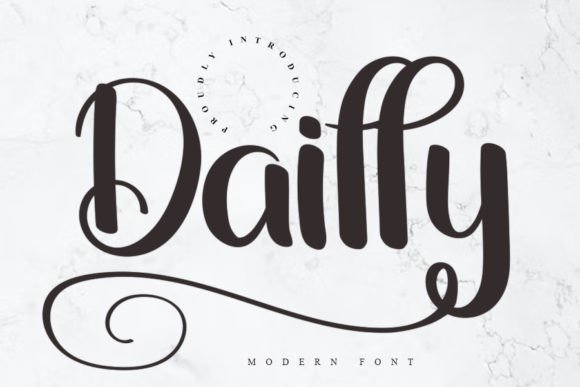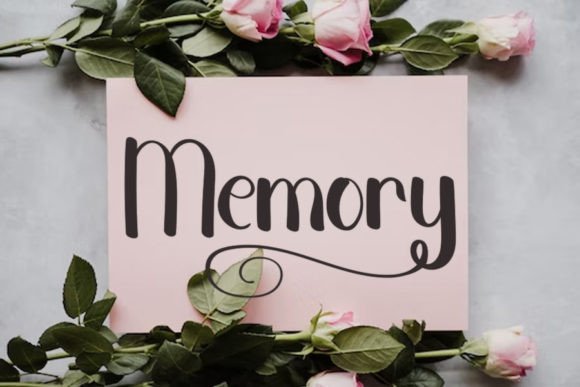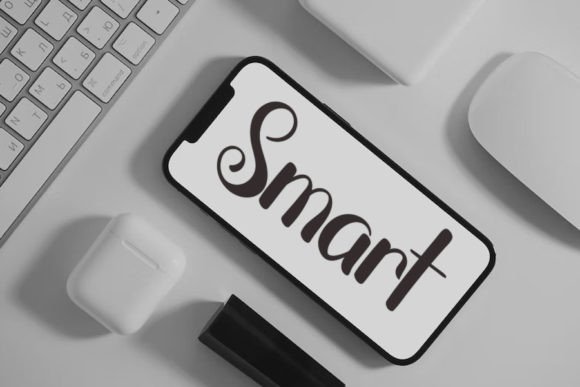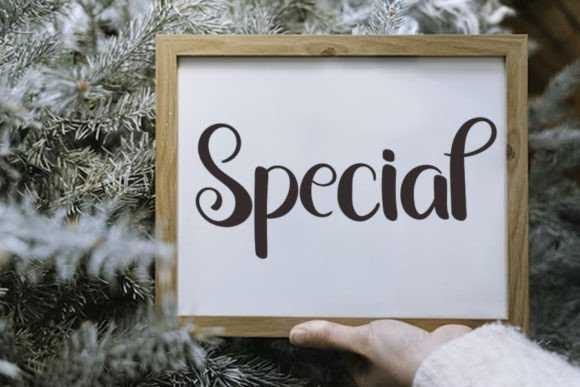
Dailly Font
What Is Dailly Font?
Dailly is a sweet and delicate handwritten font designed to add warmth and elegance to your creative projects. With its dainty curves and joyful style, this font brings a personal, romantic feel to any design. Because it is crafted with care, Dailly works beautifully in both personal and professional uses.
You’ll love how easily it transforms your ideas into graceful, eye-catching creations.
Dailly is highly versatile and works well across many design applications. For example, it is a perfect choice for wedding invitations. Whether you’re designing formal event stationery or casual save-the-date cards, this font adds a heartfelt and elegant touch.
It also shines in greeting cards and thank-you notes. If you want your messages to feel warm and sincere, Dailly helps you express every sentiment beautifully.
Additionally, this font is wonderful for social media graphics. Whether you’re posting quotes, promotions, or announcements, Dailly makes your content stand out with a romantic style.
You can also use it in branding and packaging. When you want your business to look charming and refined, Dailly helps create a lasting impression.
From event signage and product labels to DIY projects and personalized gifts, this font adapts effortlessly to any design you imagine.
Why Should You Choose Dailly Font?
There are many reasons to add Dailly to your font library. First, it’s easy to read in any size. Whether you use it for headlines or small captions, each letter stays crisp and clear.
Also, Dailly pairs beautifully with minimalist serif or sans-serif fonts, helping you create modern, balanced layouts without extra effort.
Designers love how professional it looks right away, saving time while ensuring polished results.
Dailly Font brings sweetness, elegance, and a touch of romance to every project. For example, if you want your designs to feel warm and personal, this font makes it simple.
Even minimalist layouts feel more engaging with Dailly’s flowing lines and graceful curves. Whether you’re creating wedding stationery, social media posts, or product packaging, your work will look beautiful and refined.
Using a premium handwritten font also demonstrates your attention to quality and detail, building trust and leaving a positive impression.
Dailly Font is more than just a typeface—it’s a creative asset that helps you share your ideas with heart and elegance. From wedding invitations and greeting cards to branding and packaging, this font adapts effortlessly and elevates any design.